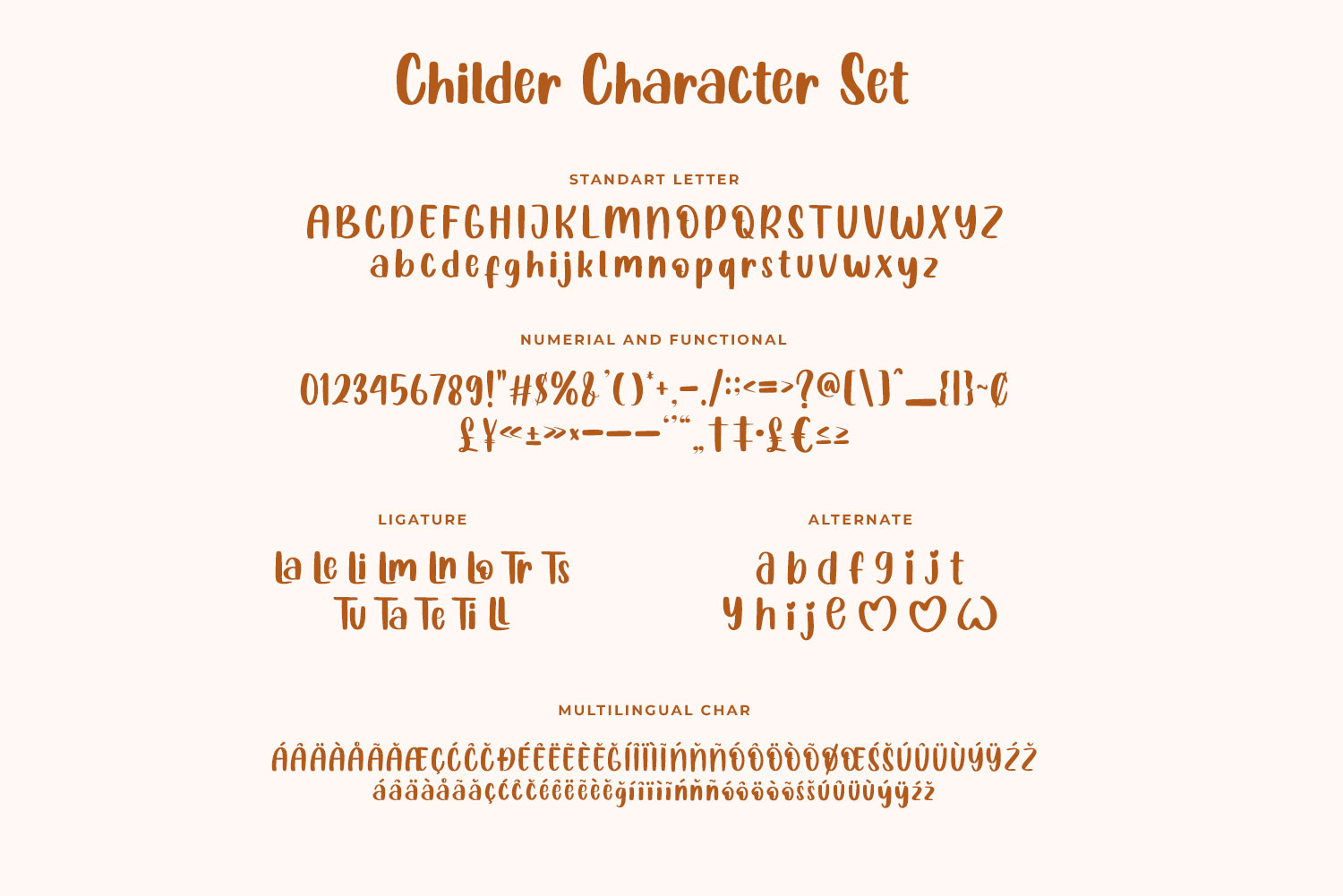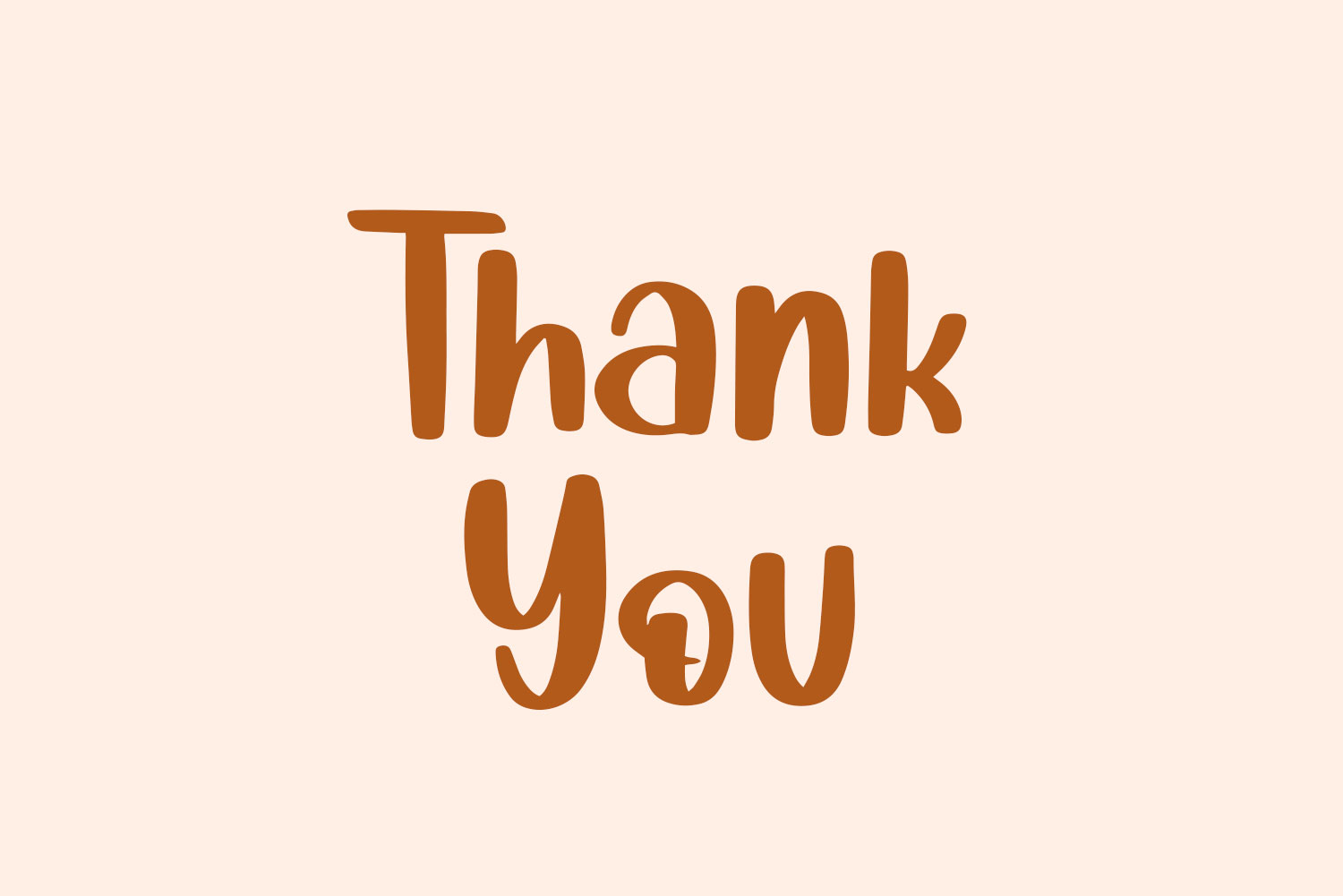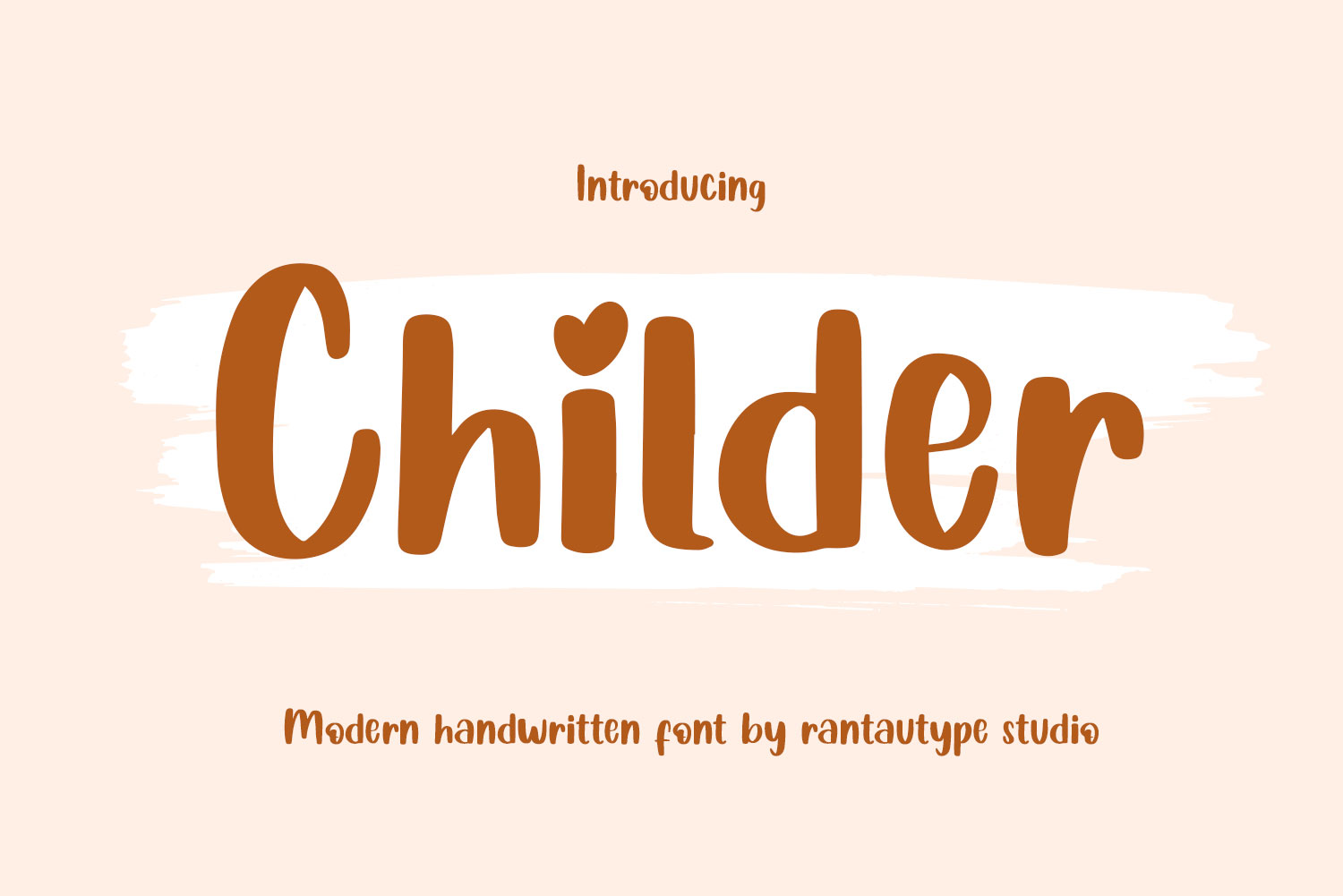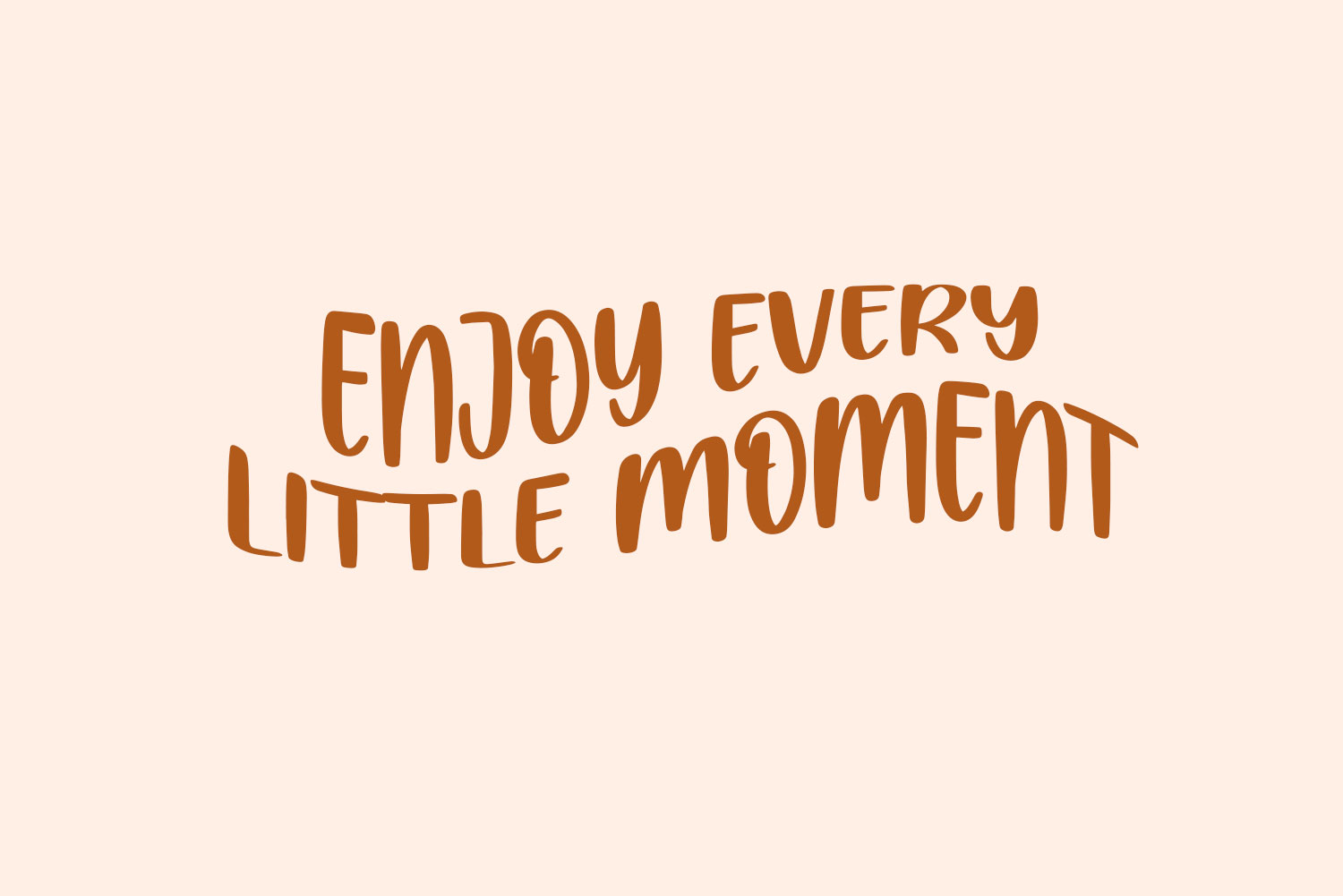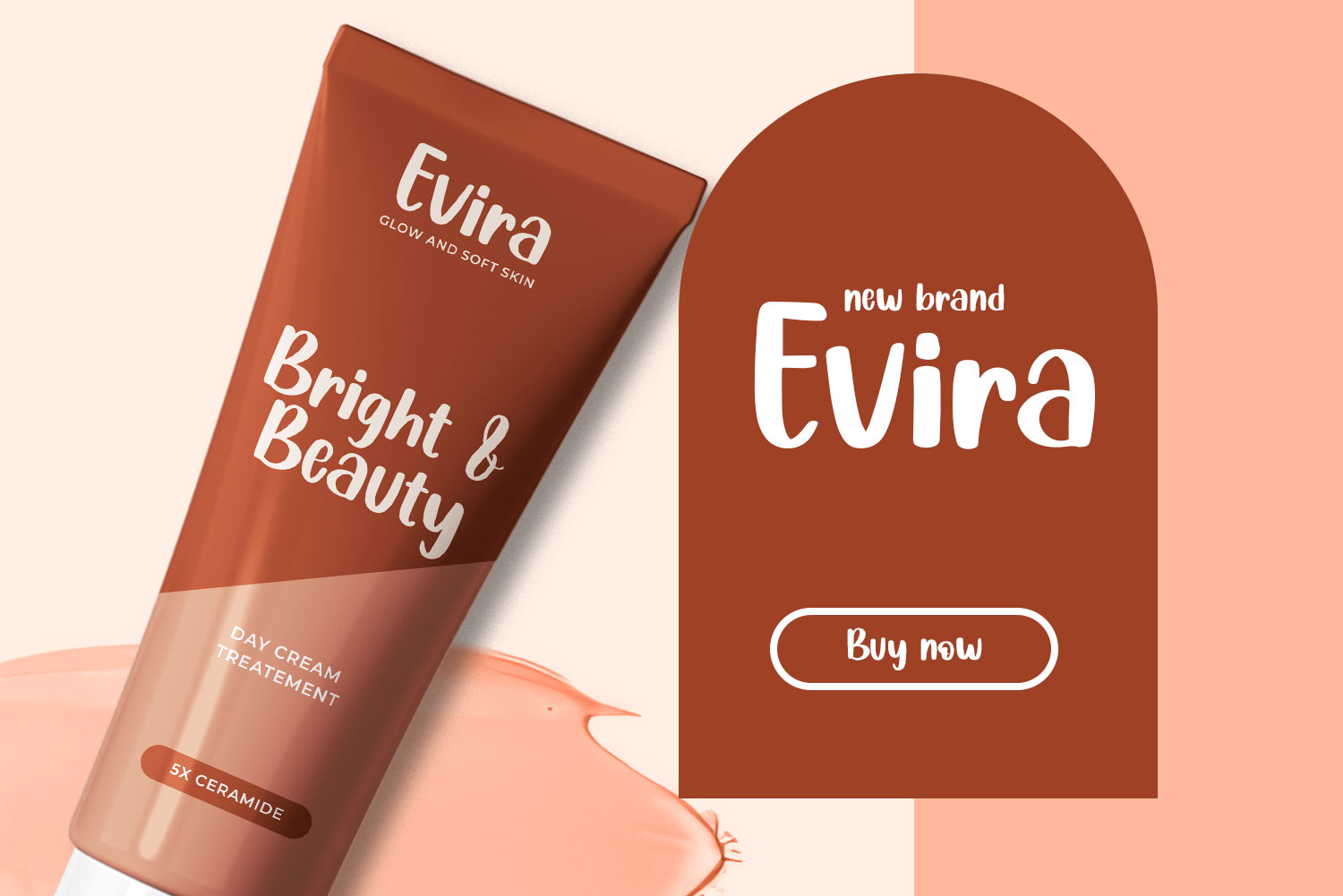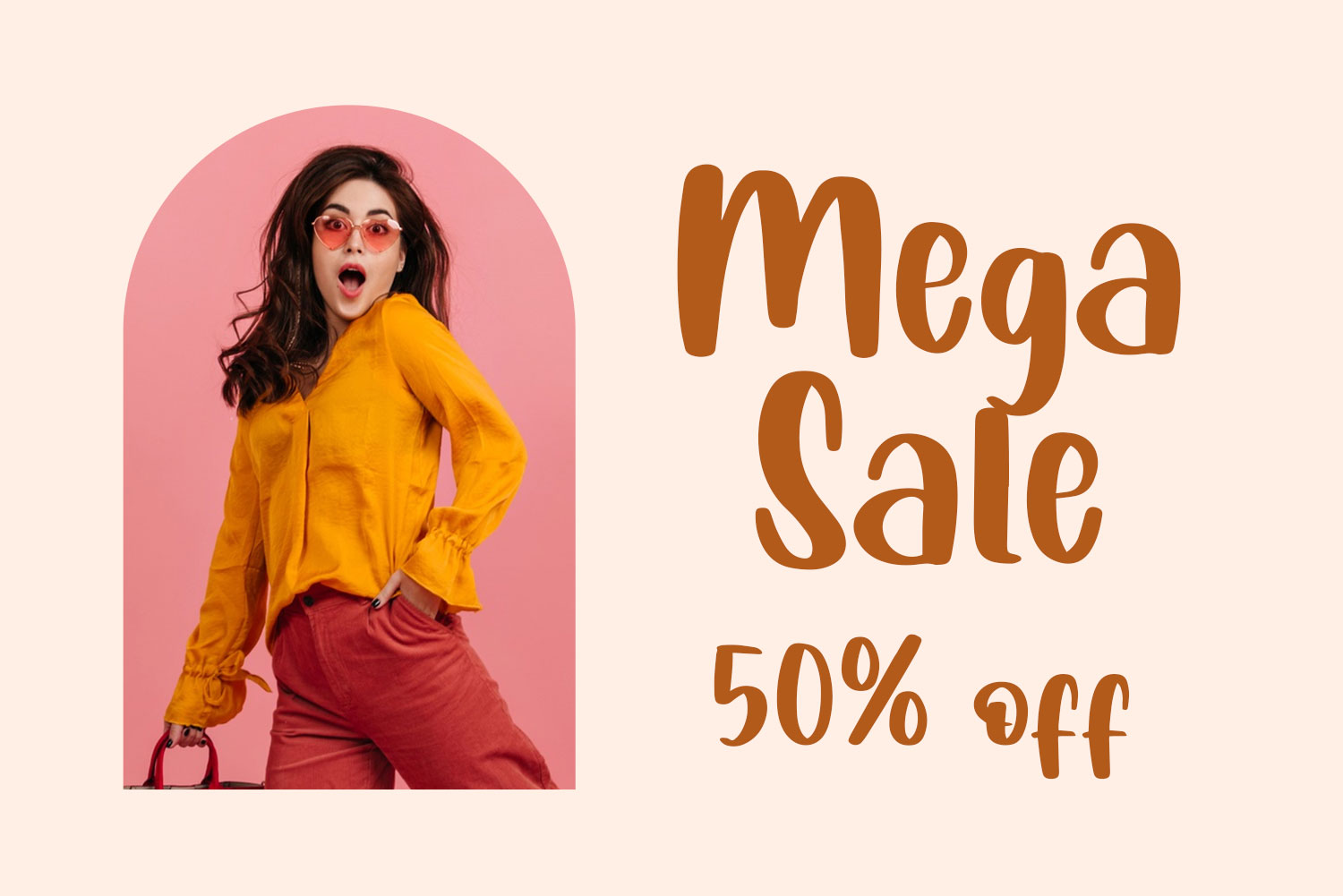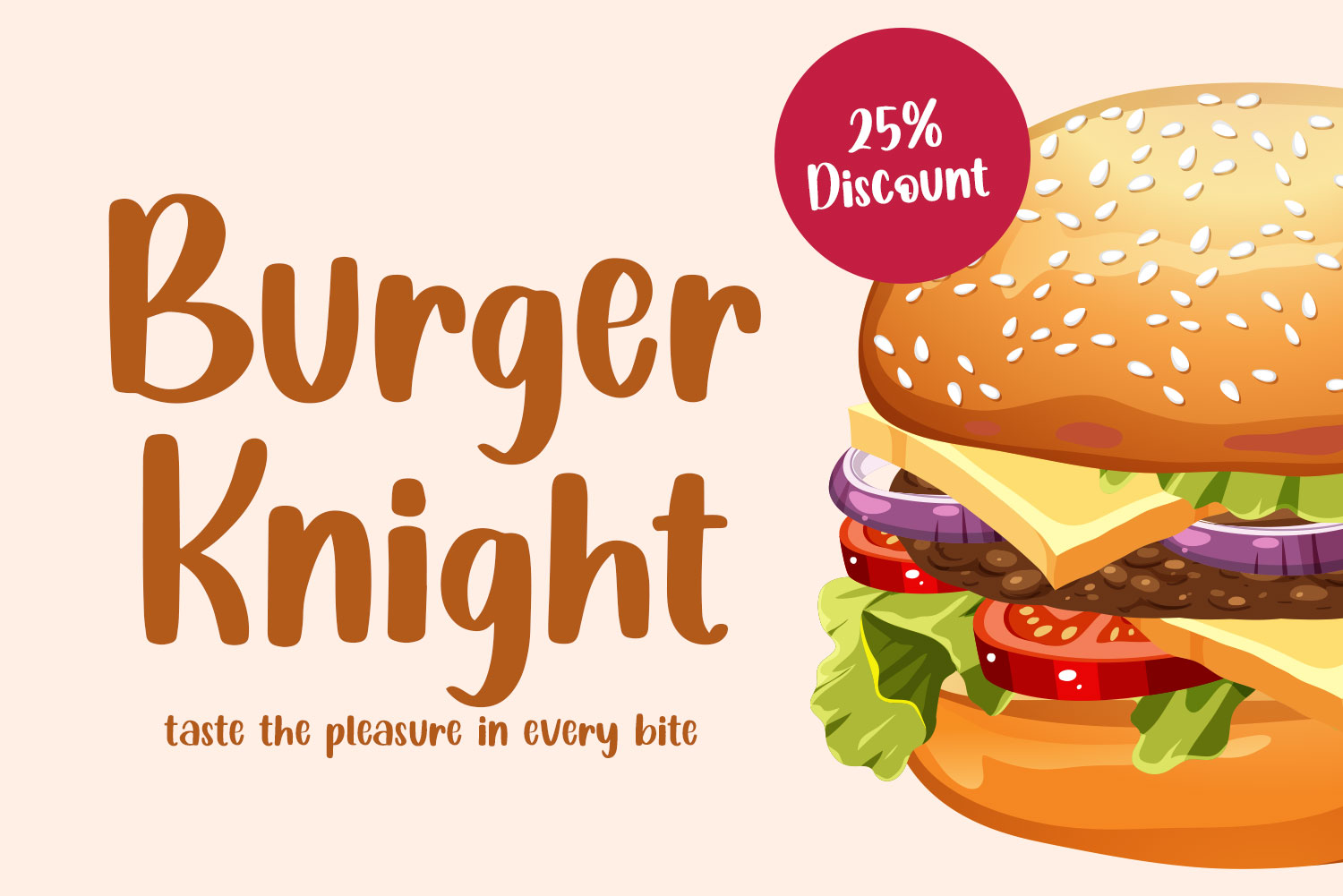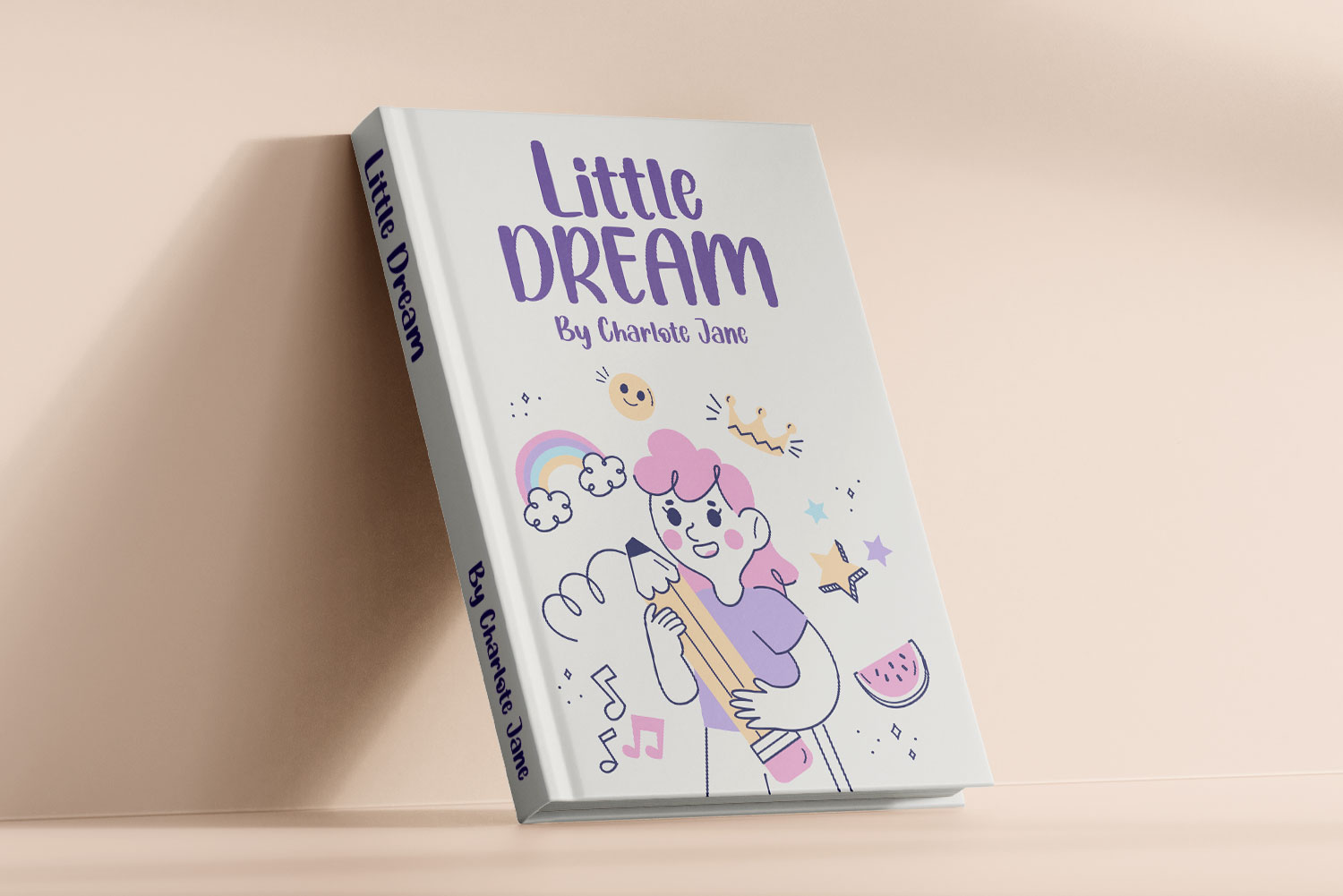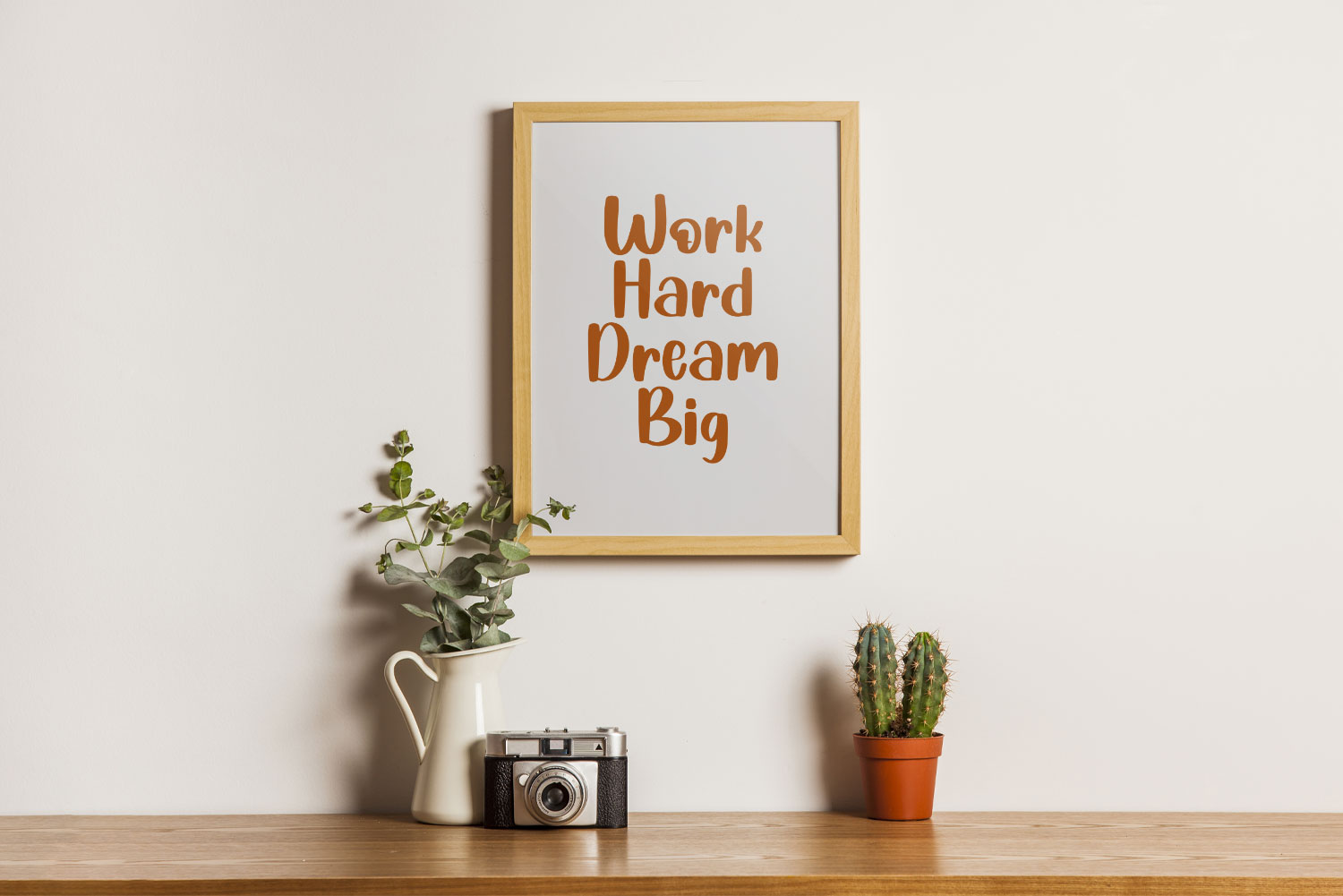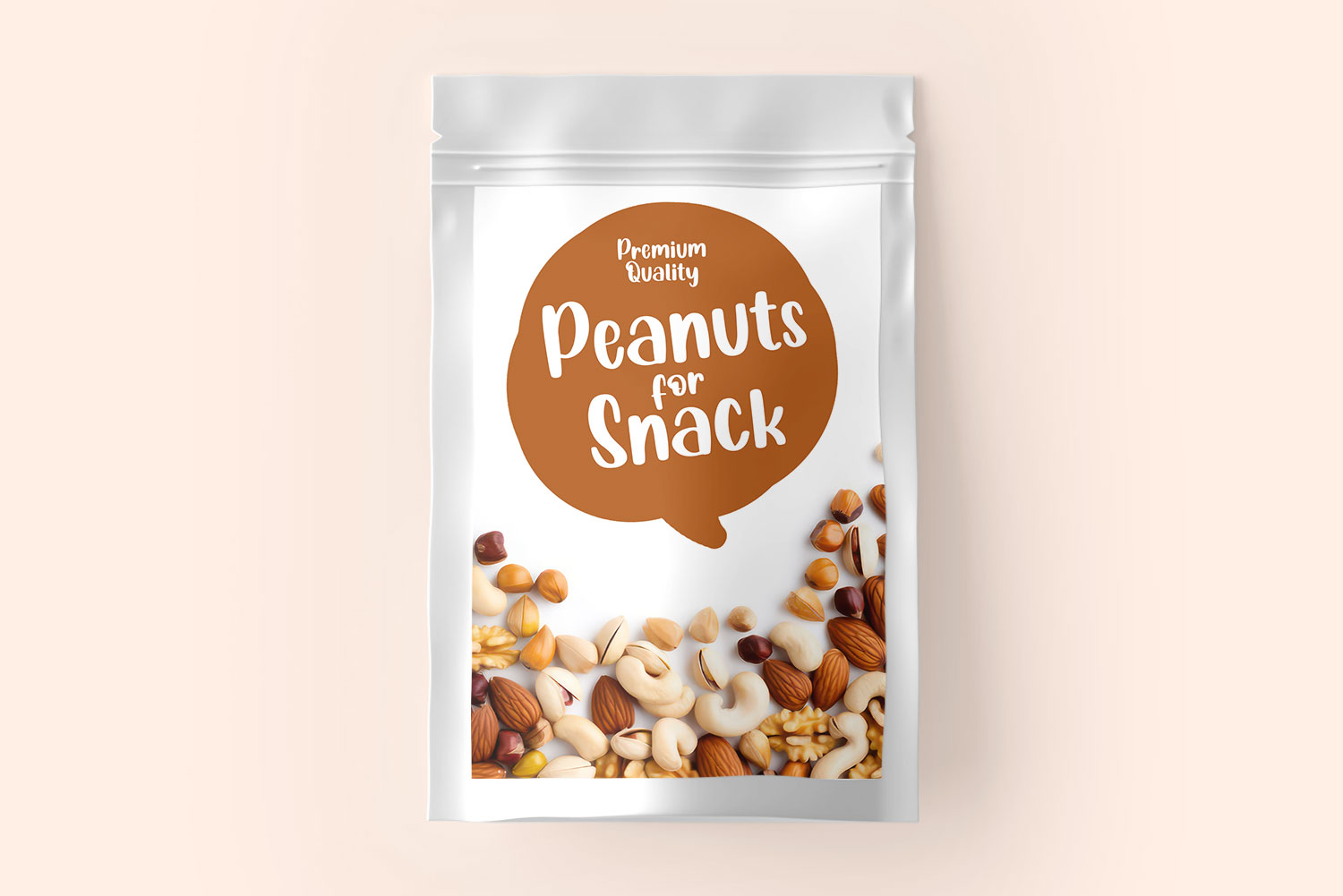
Childer Handwritten Font
Childer is modern handwritten font playful visual experience. Childer help you to make special touch and lovely typography make you project more stand out. We love how M, O and W look like love it’s can be more sophisticated and versatile.
Childer is perfectly choice for any creative endeavor, such as logos, title, watermark on photography, cover, branding, display and magazine, wedding event, corporate brand, quotes, album cover, business card, business project and many other design project with playful taste.